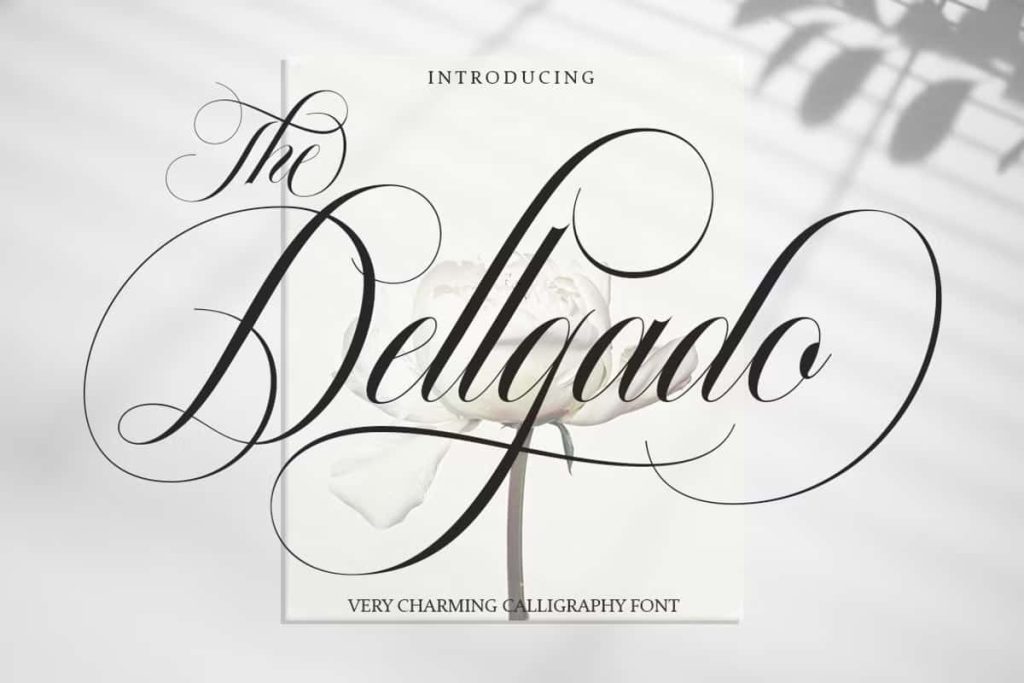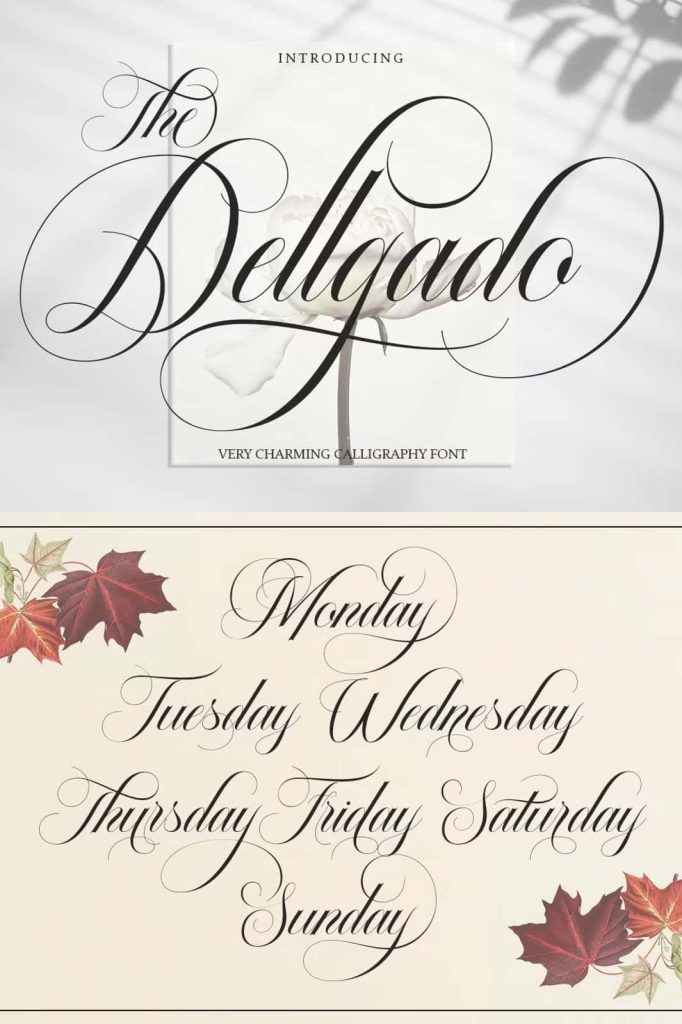
The Dellgado is the font of choice for writing things beyond words. This typeface is designed with great detail to convey stylish elegance. So, it can be said, the character of the transformation is very beautiful, a kind of classic ornamental copper script.
The Dellgado provides alternative variants of most fonts, binders and many calligraphy tips, ideal for elegant labels, high-end packaging, stationery and compositions for certain brands, beautiful titles, paragraphs, letters and short text, intended for read only with the eyes or meant to be whispered into someone’s ear.